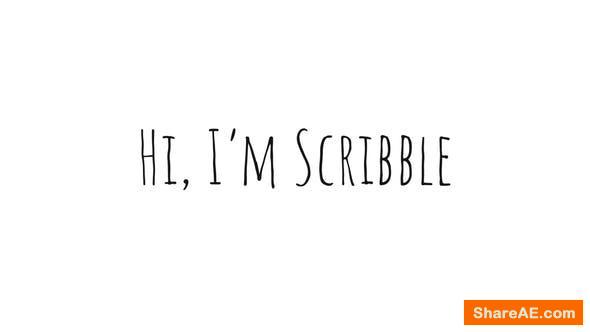
Videohive Scribble - Animated Handwriting Typeface
Scribble is an animated Typeface that can be used in several occasions like Cartoon Animations or Playful Titles, Intros, Greeting Cards, Lower Thirds or any other Text on Screen. The letters are animated in a slow pace, this allows you to change the writing speed from very slow and detailed to fast without any quality loss. The stop-motion-like wiggle effect seen in the beginning of the preview can be turned off and on.
Unlike other Animated Typefaces, you don’t need to drag each letter on its own into the timeline, you can actually write your text in a textbox and let the included Script “EasyType” import all the necessary compositions with the click of a button. A videotutorial explains you how to work with the template and the script.
The example projects shown in the preview are not included, but can easily be recreated with the use of Scribble.